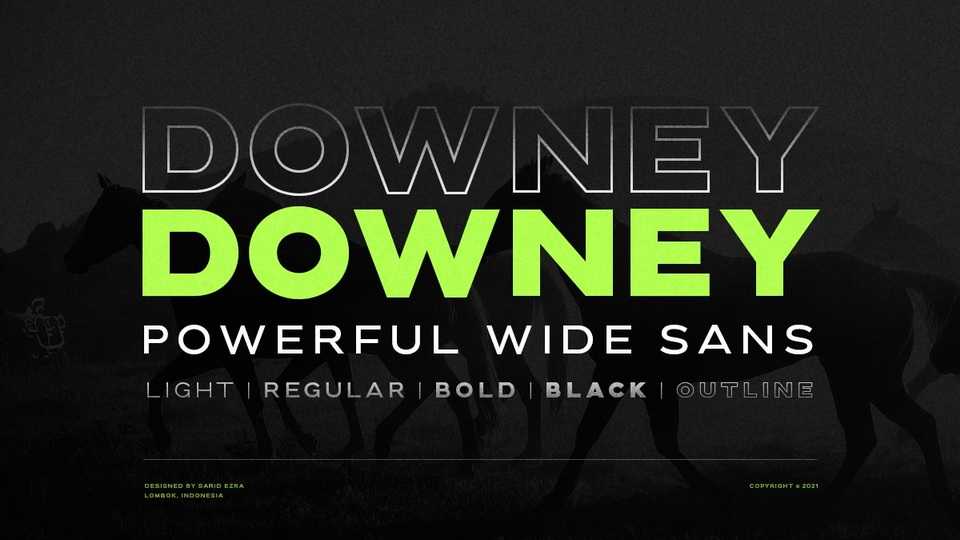
Download Downey font, a casual and essential all caps sans serif typeface. With slightly wide form and strong look, Downey font will suitable for your any project and designs.